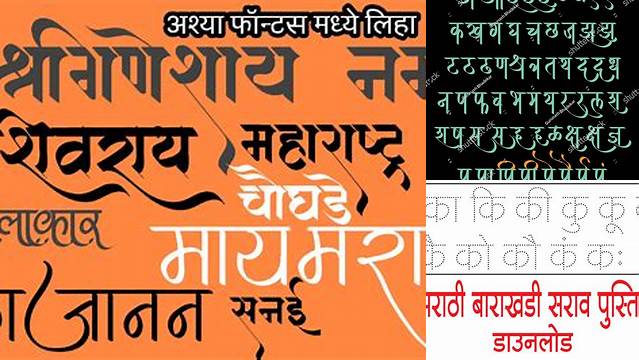
Marathi Handwriting Font: Free Download Guide
Hey guys! Are you looking to add a personal touch to your digital creations? Look no further! In this comprehensive guide, we'll dive deep into the world of Marathi handwriting fonts, exploring everything from where to find them for free to how to use them effectively. Let’s make your projects stand out with the beauty of Marathi script!
1. Understanding the Appeal of Marathi Handwriting Fonts
Marathi handwriting fonts bring a unique, humanistic touch to your designs, setting them apart from standard digital typefaces. The charm and authenticity of handwriting can evoke feelings of warmth, nostalgia, and personal connection. Whether you're designing invitations, creating social media content, or working on a branding project, integrating a Marathi handwriting font can significantly enhance the visual appeal and resonate deeply with your audience.
Consider the context where you'll be using the font. A playful, informal script might be perfect for a children's book, while a more elegant, flowing style could suit wedding invitations or spiritual content. The key is to align the font's personality with the overall message and tone of your project. By leveraging the distinct qualities of Marathi handwriting fonts, you can create visually compelling designs that capture attention and leave a lasting impression.
When selecting a font, pay close attention to its legibility and readability. Even the most beautiful script will be ineffective if it's difficult to decipher. Ensure that the font is clear and easy to read, especially in smaller sizes. Test it out in various contexts to see how it performs, and make adjustments as needed. Experiment with different font sizes, colors, and spacing to find the optimal combination for your specific design requirements. Remember, the goal is to enhance the user experience, not to detract from it.
Marathi handwriting fonts provide a distinct advantage in conveying cultural nuances and local flavors. They can help establish a sense of authenticity and connection with your target audience, especially if you're creating content for the Marathi-speaking community. By incorporating these fonts into your designs, you can create a visual language that speaks directly to your audience and resonates with their cultural identity. This can be particularly valuable for businesses, organizations, and individuals looking to build strong relationships with their local community.
Dafont is a popular website that hosts a vast collection of fonts submitted by designers from around the world. While the quality of fonts can vary, Dafont offers a wide range of styles, including many handwriting fonts that support Marathi script. The site's search filters allow you to narrow down your options based on criteria such as style, license, and language support. However, it's essential to exercise caution when downloading fonts from Dafont, as some fonts may have restrictive licenses or may not be of the highest quality. Always check the font's preview and read the license agreement before using it.
MyFonts is a well-respected font marketplace that offers a wide selection of premium fonts. While most fonts on MyFonts are paid, they occasionally offer free fonts as part of promotional campaigns. Keep an eye out for these opportunities to snag a high-quality Marathi handwriting font without spending a dime. MyFonts is known for its rigorous quality standards and its extensive font library, making it a reliable source for professional-grade fonts.
30. Final Thoughts on Marathi Handwriting Fonts
So, guys, that’s pretty much everything you need to know about Marathi handwriting fonts! Finding the perfect font can take time, but the effort is worth it when you see how it elevates your projects. Experiment, have fun, and don’t be afraid to try new things. Whether you're designing a poster, creating social media content, or working on a branding project, the right Marathi handwriting font can help you connect with your audience on a deeper level and create a lasting impression. Happy designing!